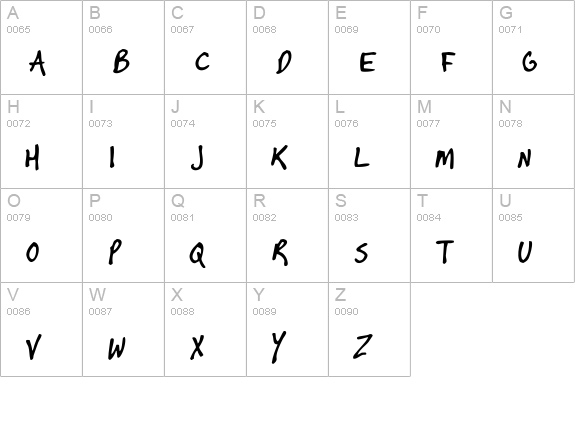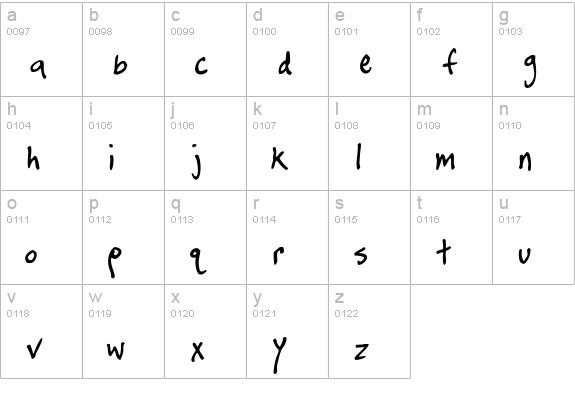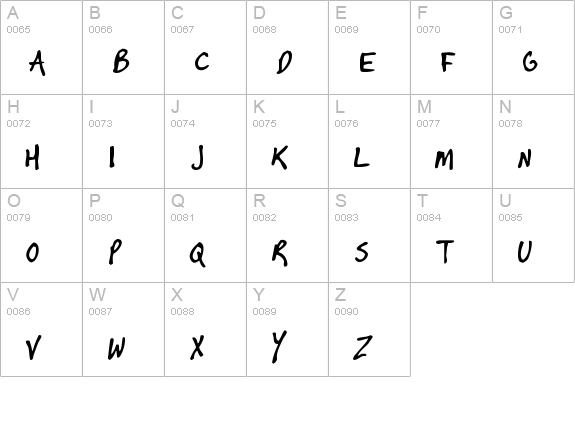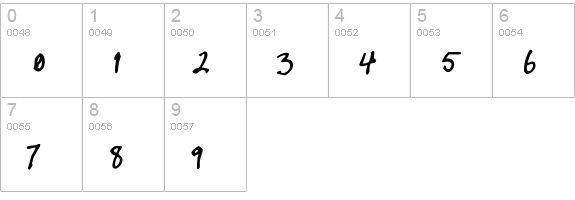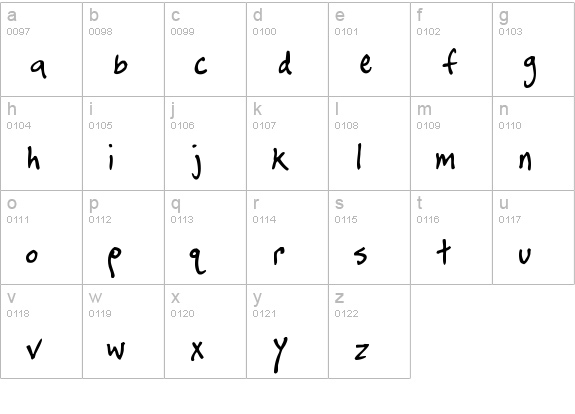
timtastic! hand Font Details
Introducing the timtastic! hand font, a mesmerizing typeface that effortlessly captures the essence of hand-drawn artistry. This font is a delightful fusion of playfulness and elegance, making it the perfect choice for projects that require a touch of whimsy and creativity. With its charmingly imperfect letterforms and organic strokes, timtastic! hand font adds a unique and personal touch to any design. Whether you're creating invitations, greeting cards, logos, or simply adding a creative flair to your social media posts, this font will surely captivate your audience and leave a lasting impression. What makes timtastic! hand font even more incredible is that it's free! Yes, you read that right. This font is freely available to download at FontsMarket.com, ensuring that anyone can access its beauty and versatility without breaking the bank. Featuring a comprehensive character set, timtastic! hand font offers a wide range of uppercase and lowercase letters, numerals, punctuation marks, and special characters. This allows you to fully express your creativity and explore endless design possibilities. Whether you're a professional designer or someone who simply appreciates the art of typography, timtastic! hand font is a must-have addition to your font collection. Its ability to inject a sense of whimsy and authenticity into your projects is unmatched. So why wait? Download timtastic! hand font today from FontsMarket.com and experience the joy of freely expressing yourself through this remarkable typeface. Let your imagination run wild and watch as your designs come alive with the captivating charm of timtastic! hand font.